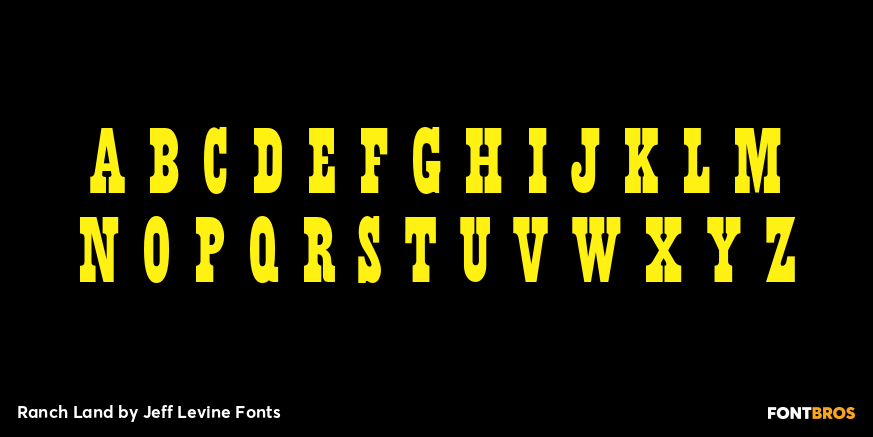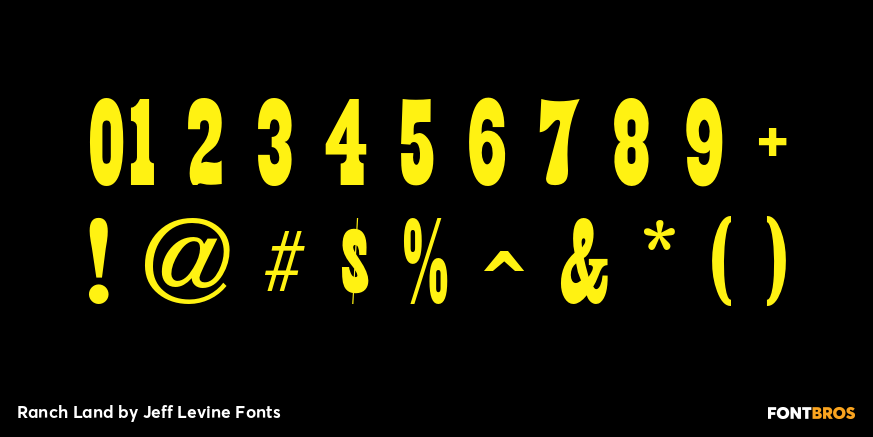
Ranch Land
Ranch Land JNL is based on a classic French Clarendon wood type, many of which were popular in the 1800s and are now associated with either Western motifs or circus events.